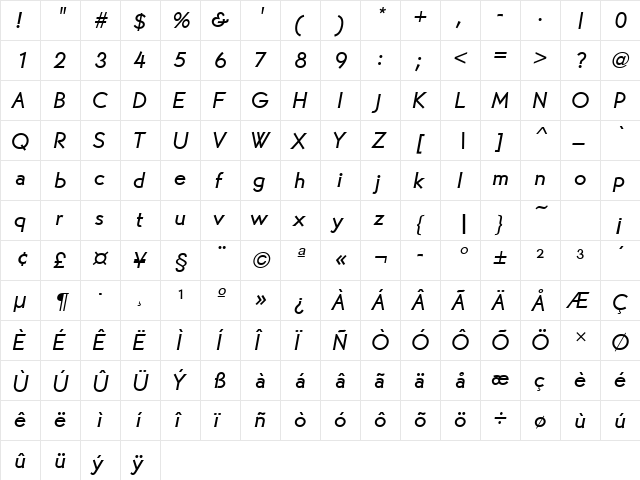
MartinGotURWTMed Italic
Design Context for MartinGotURWTMed Typeface
MartinGotURWTMed offers clean, dependable letterforms without strong stylistic allegiance, making it a practical choice for designers who need flexibility. Its italic angle brings a sense of urgency and motion to the letterforms.
Pro Tip: Try MartinGotURWTMed for annotation and caption copy alongside an upright companion — the contrast in angle creates a dynamic but ordered typographic system.